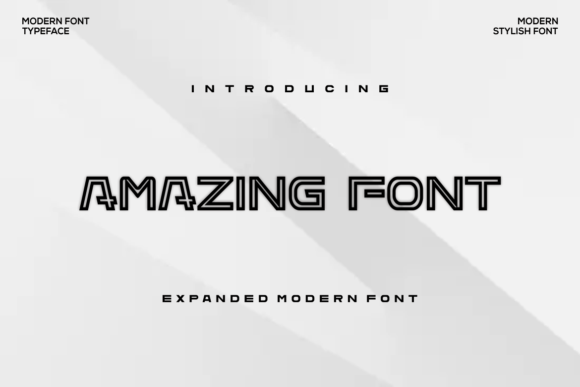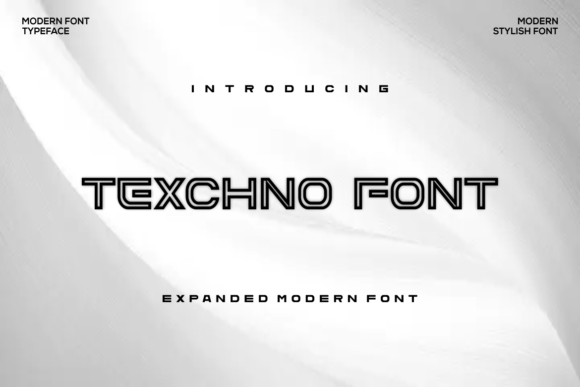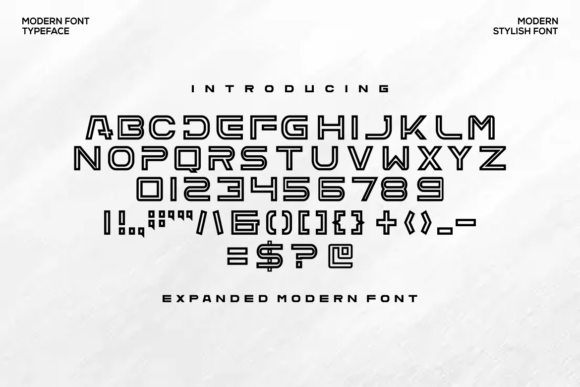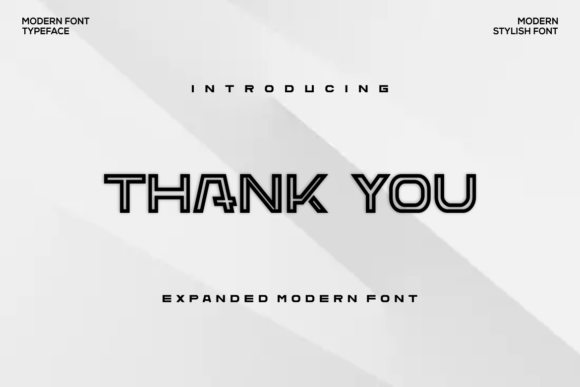
Introduction to Kimaxs Font Font
Fonts play a crucial role in design, and the Kimaxs Font font is a typeface that brings both character and versatility to any project. Whether you’re working on a branding project, a website, or a print design, the Kimaxs Font font offers a unique style that can elevate your work.
Presenting our new product **Kimaxs Font** – Modern Font is a bold and authentic display font.
This font is perfect for any branding project such as logos, t-shirt printing, creative products, and more extraordinary in a variety of contexts.
The Kimaxs Font font is more than just a typeface – it’s a design tool that helps you communicate your message with style and clarity. Its unique character set and versatile design make it suitable for a wide range of applications, from elegant invitations to bold headlines.
With its carefully crafted letterforms and balanced proportions, the Kimaxs Font font ensures readability and visual appeal across all mediums.
The Kimaxs Font font stands out with its unique design, exceptional readability, and versatility across various design applications.